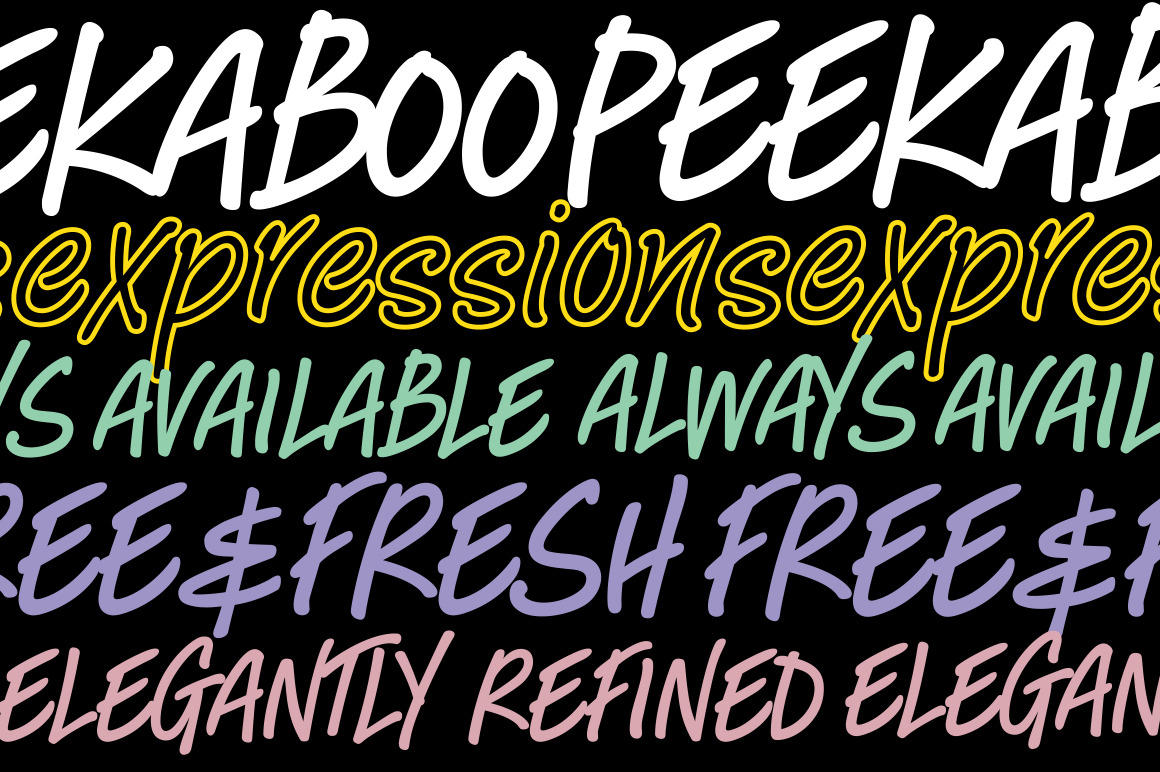
Peekaboo tries to recreate a generous chalk-like lettering effect. It is both loose & tight to create a unique effect that is very effective and memorable